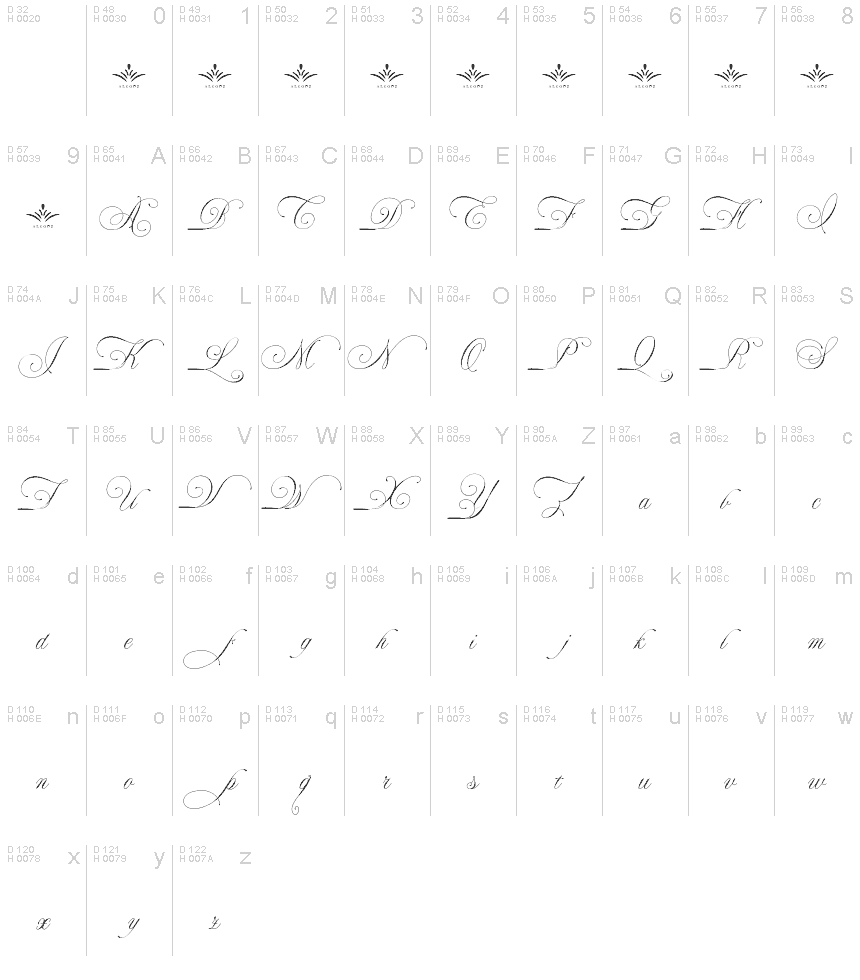
WilliamDukeDemo
Wiliam Duke is a classic font. With OpenType features, it recreates the handwriting feelings of an English man in the mid-19th century. So it makes it perfect for wedding media, book covers, greeting cards, logos, branding, business cards and certificates, actually for any design work that requires a clasik, formal or luxury.